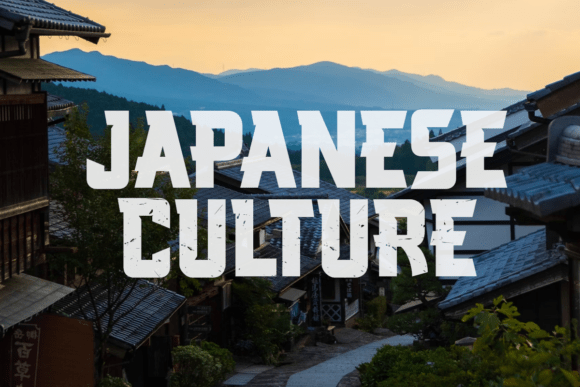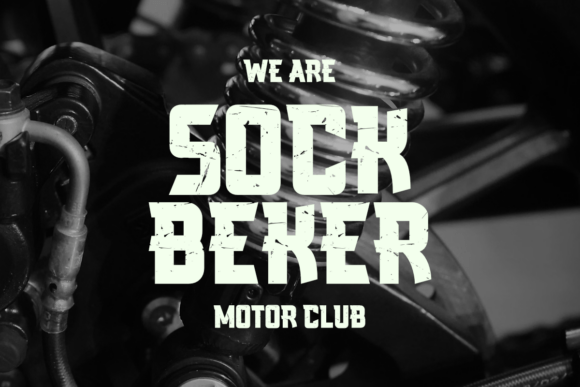
Dirty Lines Font
Dirty Lines typeface is a bold, vintage-inspired sporty font that exudes grit, strength, and raw energy. Its distressed texture and sharp cuts channel the spirit of worn jerseys, mud-splattered gear, and the rough-and-ready world of old-school athletics. Drawing inspiration from retro sports typography, Dirty Lines delivers a rugged personality that instantly commands attention.
Perfect for streetwear branding, grunge-style logos, extreme sports posters, team apparel, and throwback race graphics, this typeface brings edge and authenticity to every project. Whether you’re designing for motocross, outdoor adventure brands, or nostalgic sports visuals, Dirty Lines offers bold impact with unmistakable attitude.
While it’s a distressed slab serif display font, it also blends elements of sports and grunge typography, making it stylistically bold and highly distinctive. PUA encoding ensures that all stylistic features and extras can be used with just a few clicks.